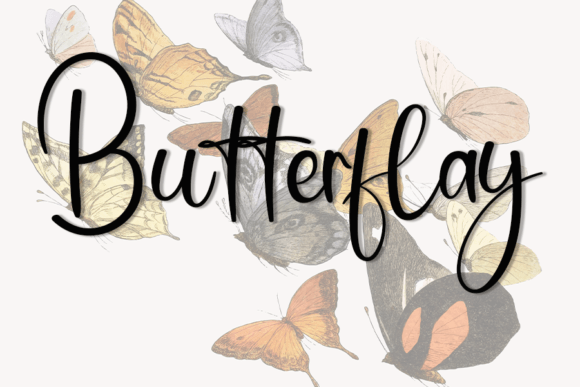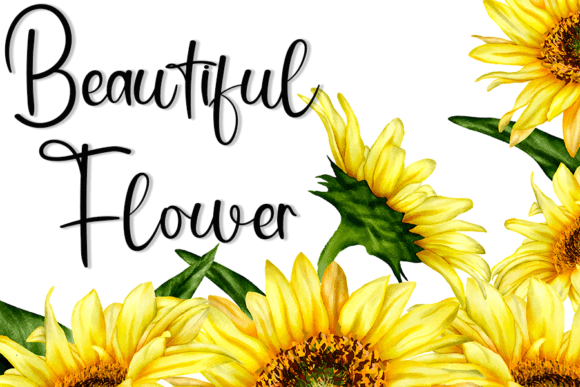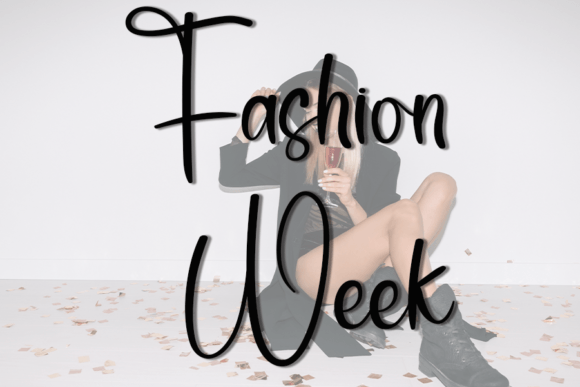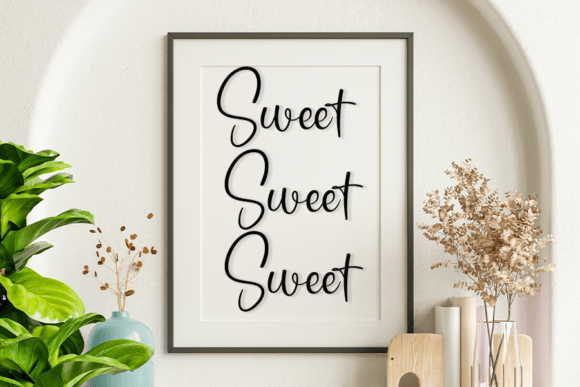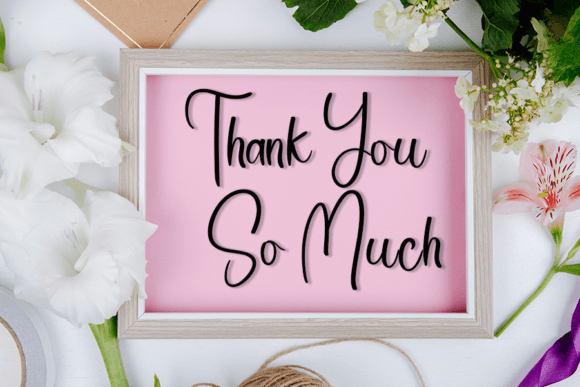
Simple Present Font
Simple Present is a neat and casual handwritten font. This versatile font has a wide spectrum of applications ranging from greeting cards to headlines and is guaranteed to add a simple and natural feel to your next project!